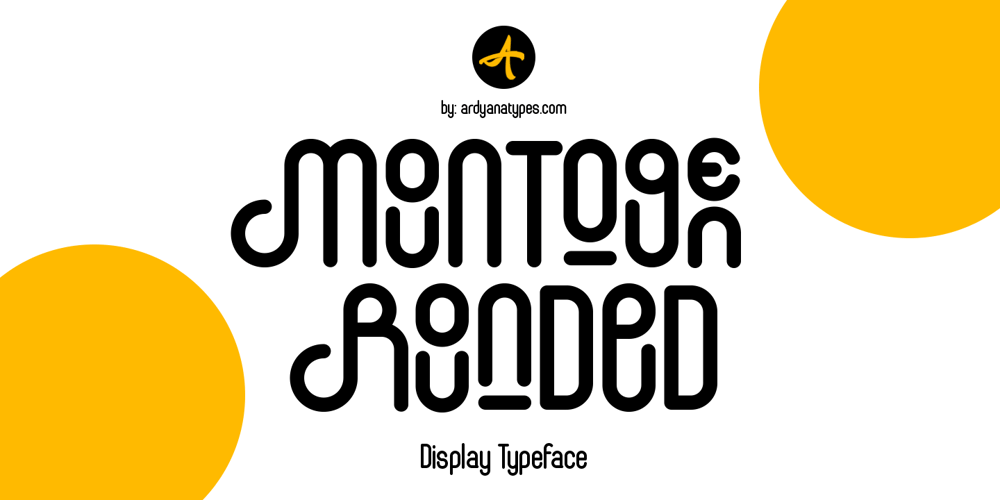
Mountogen
Mountogen font
Mountogen Font Family was designed by Ardyana Putra and published by Ardyanatypes. Mountogen contains 1 styles and family package options. Introducing Mountogen Rounded Typeface Style which has a unique and very strong characteristic that makes all designs look unique and have a modern feel. Mountogen Rounded has its own charm, so it will be very suitable to be combined with any style. Has Lots of Alternatives and ligatures to add a great interactive feel to every design. Mountogen Rounded also comes with multilingual support and is very easy to use. Mountogen Rounded is interesting to use in designs such as books, movie posters, logos, branding, business cards, and more that can be combined with Mountogen Rounded.Supports languages: Afrikaans, Albanian, Asu, Azerbaijani, Basque, Bemba, Bena, Bosnian, Breton, Catalan, Chiga, Colognian, Cornish, Croatian, Czech, Danish, Dutch, Embu, English, Estonian, Faroese, Filipino, Finnish, French, Friulian, Galician, Ganda, German, Gusii, Hungarian, Icelandic, Igbo, Inari Sami, Indonesian, Irish, Italian, Jola-Fonyi, Kabuverdianu, Kalaallisut, Kalenjin, Kamba, Kikuyu, Kinyarwanda, Latvian, Lithuanian, Low German, Lower Sorbian, Luo, Luxembourgish, Luyia, Machame, Makhuwa-Meetto, Makonde, Malagasy, Malay, Maltese, Manx, Meru, Metaʼ, Morisyen, North Ndebele, Northern Sami, Norwegian Bokmål, Norwegian Nynorsk, Nyankole, Oromo, Polish, Portuguese, Quechua, Romanian, Romansh, Rombo, Rundi, Rwa, Samburu, Sango, Sangu, Scottish Gaelic, Sena, Shambala, Shona, Slovak, Slovenian, Soga, Somali, Spanish, Swahili, Swedish, Swiss German, Taita, Teso, Thai, Turkish, Turkmen, Upper Sorbian, Vietnamese, Vunjo, Walser, Welsh, Western Frisian, Wolof, Yoruba, ZuluA guide to accessing all alternatives can be read at http://adobe.ly/1m1fn4YAdobe Photoshop go to Window – glyphs Adobe Illustrator go to Type – glyphsFeatures: A – Z Character Set a – z Characters set Numerals & Punctuations (OpenType Standard) Multilingual Thank you and have a nice day